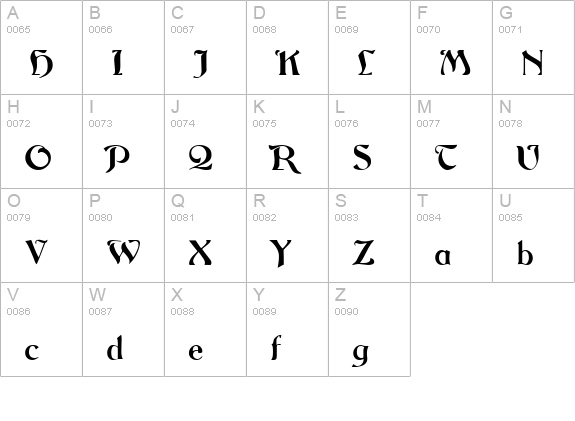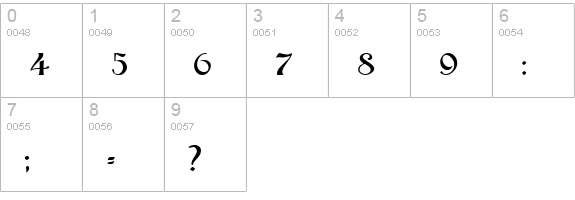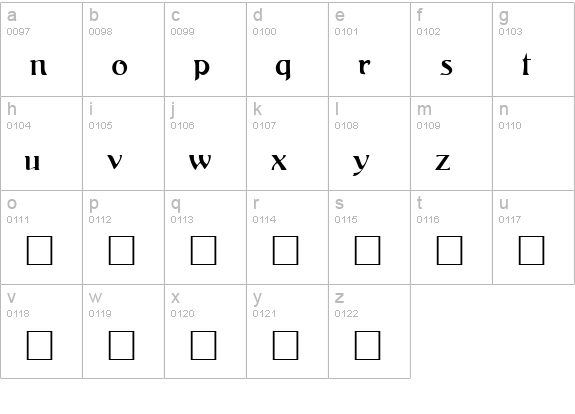
ArgosANouveau Font Details
ArgosANouveau is a stunning and elegant font that combines classic art deco style with a modern twist. Its sleek lines and sophisticated curves give any design a touch of sophistication and luxury. This font is perfect for creating eye-catching logos, branding materials, invitations, and more. What makes ArgosANouveau even more appealing is that it is available for free download at FontsMarket.com. This means that you can easily add this beautiful font to your collection without any cost. Whether you are a professional designer or a hobbyist looking to elevate your projects, ArgosANouveau is a must-have font that will bring a touch of glamour to any design. Download it today and unleash your creativity with this exquisite typeface.